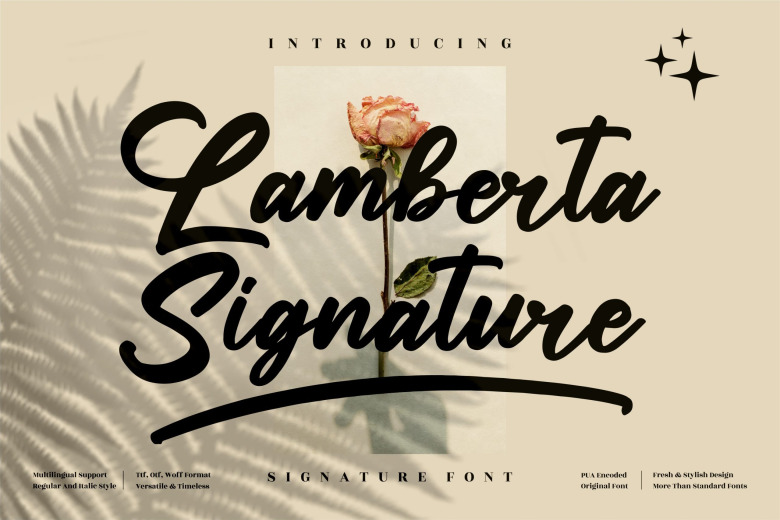
Lamberta Signature Font
Lamberta Signature is a sweet, delicate and thin lettered script font. It looks beautiful on a variety of designs requiring a personalized style. This font is PUA encoded which means you can access all of the glyphs and swashes with ease!